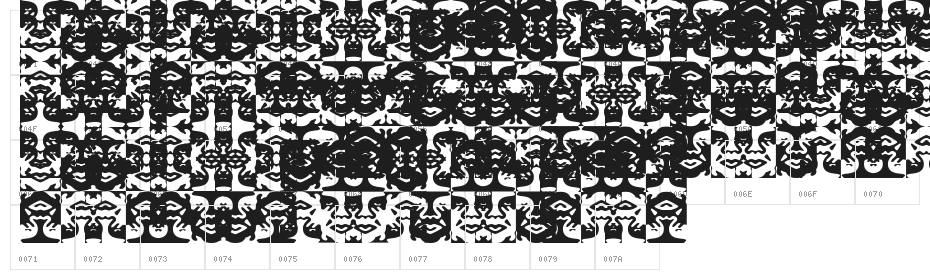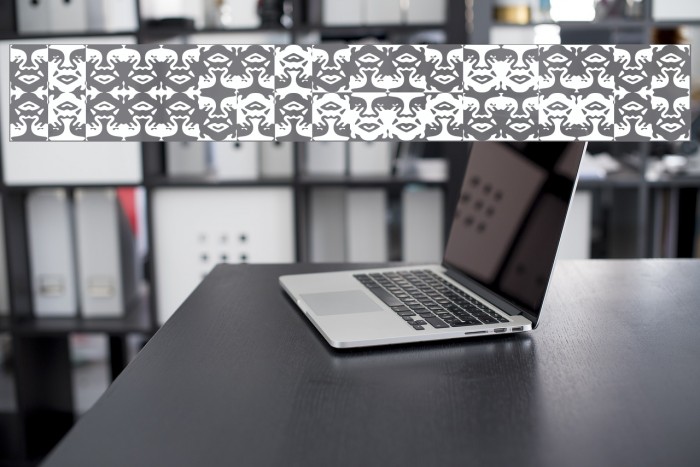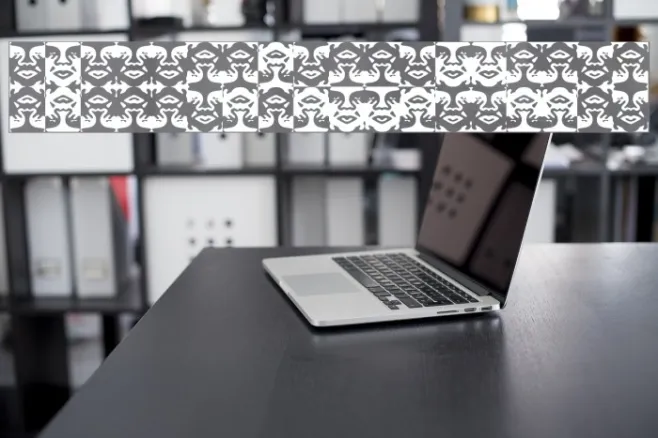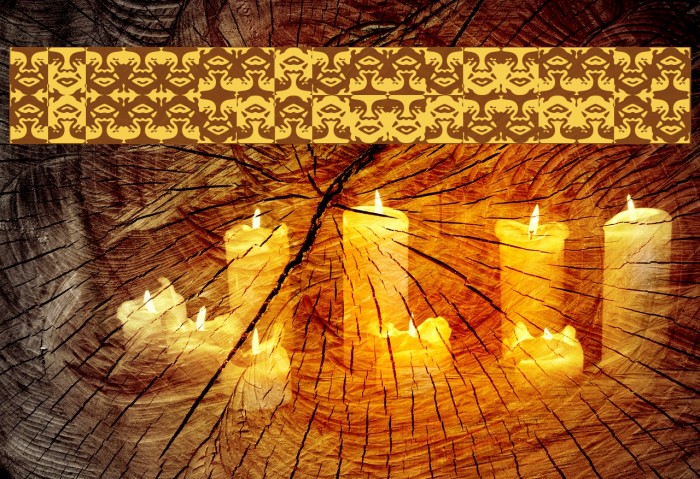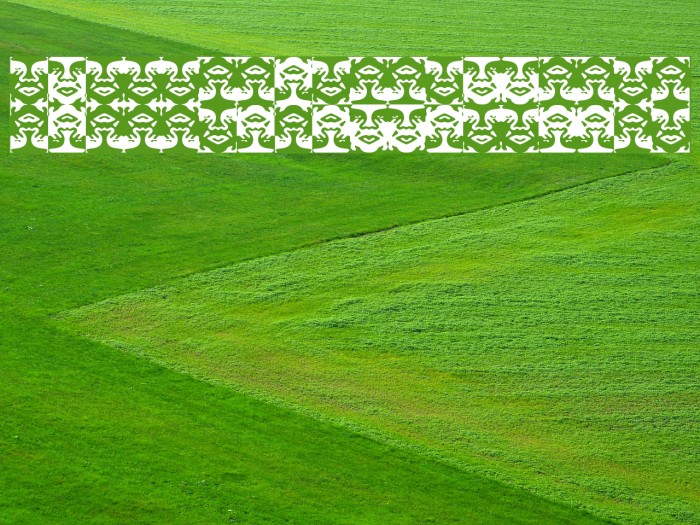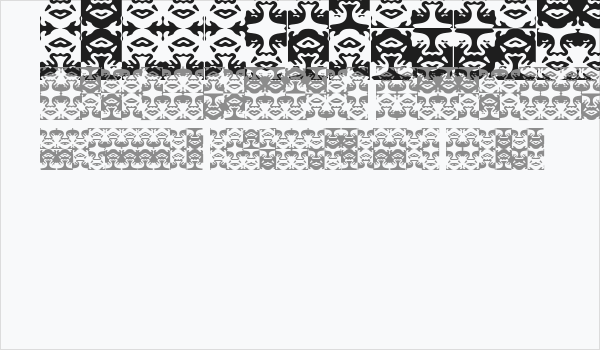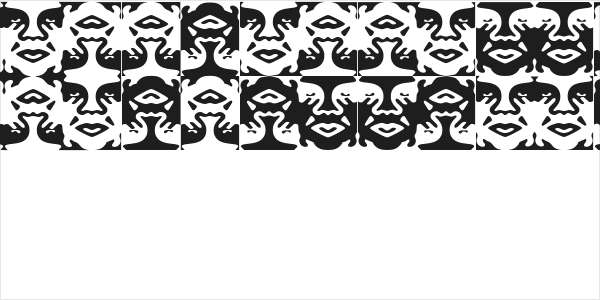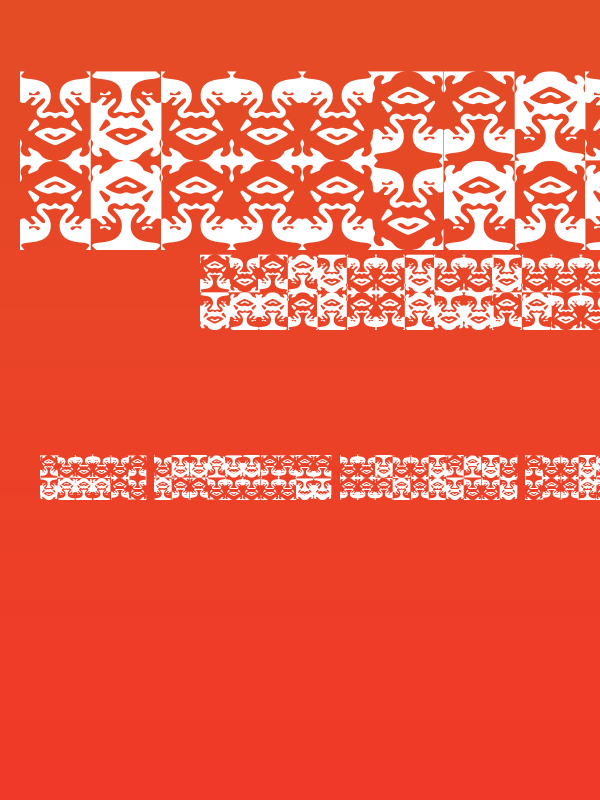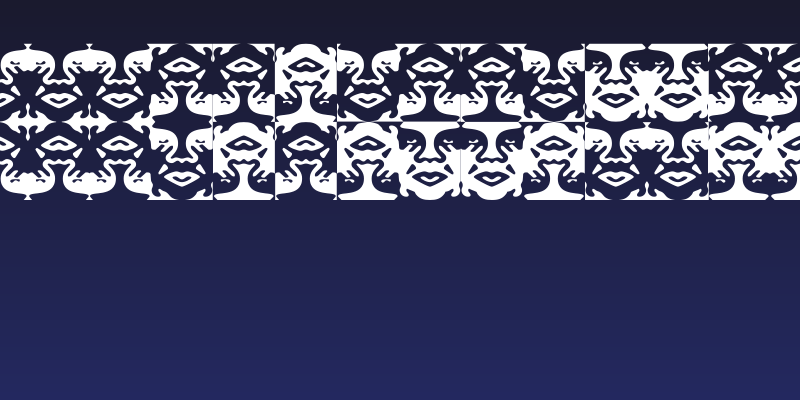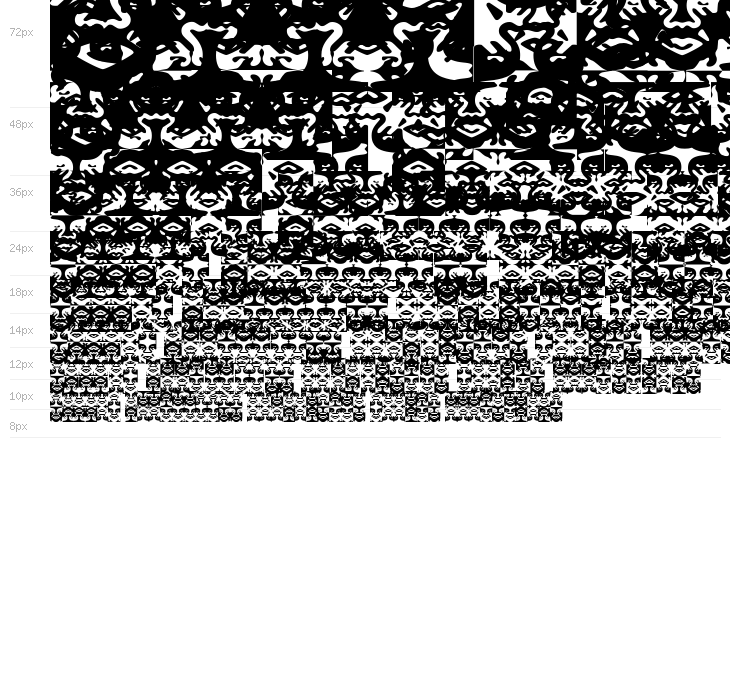
ObeysTile Font
ObeysTile Description
This design features a repetitive pattern of stylized faces, creating a bold and striking visual effect. The pattern is highly decorative, with each character space filled by a face motif, making it more of an artistic design than a traditional font. The black and white contrast is sharp, enhancing the visibility of the intricate details within each face. This design is not suitable for text but serves as a compelling decorative element. The uniformity of the pattern across the rows suggests a consistent theme, ideal for creating a statement piece in graphic design projects.
| Use Case | Logos, Posters, Backgrounds |
| Proposed Projects | Ideal for use in graphic design projects, such as posters, album covers, or as a background pattern in digital art. |